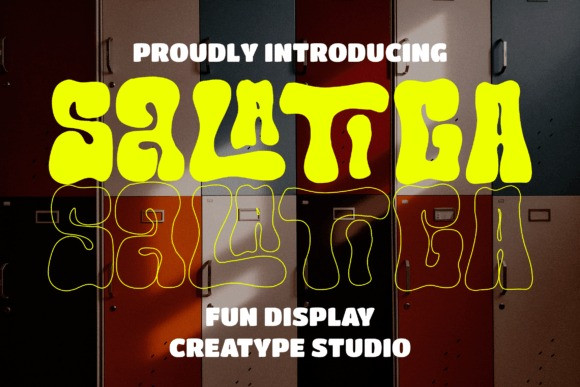
Salatiga Font
Salatiga Display Font is a fun and playful display font. Its bulky and attractive look will emphasize the fun side of your design. Add it confidently to your creative projects and you will love the results! Salatiga is PUA encoded which means you can access all the glyphs and ligatures with ease!